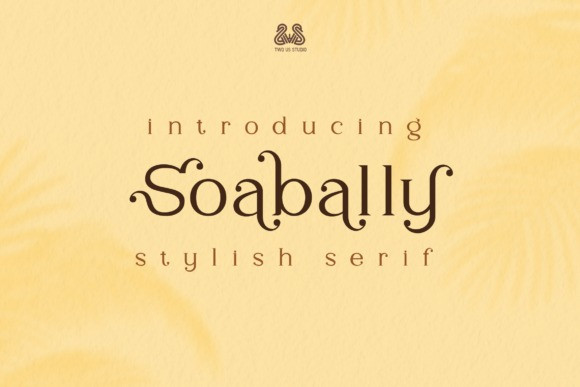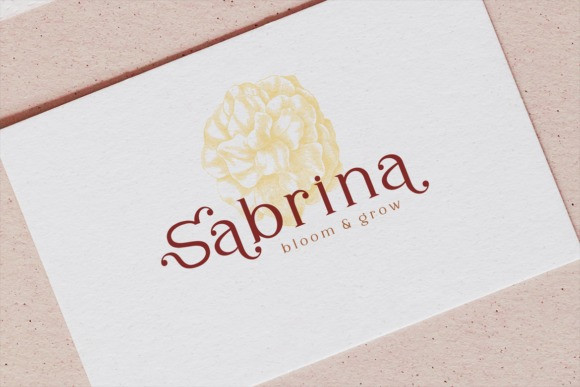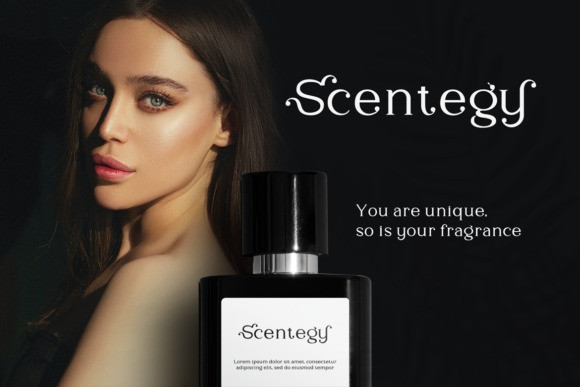
Soabally Font
Soabally is a delicate and stylish serif font. It will look stunning on any poster, flyer or print.
Use this font for your designs and explore its endless possibilities.